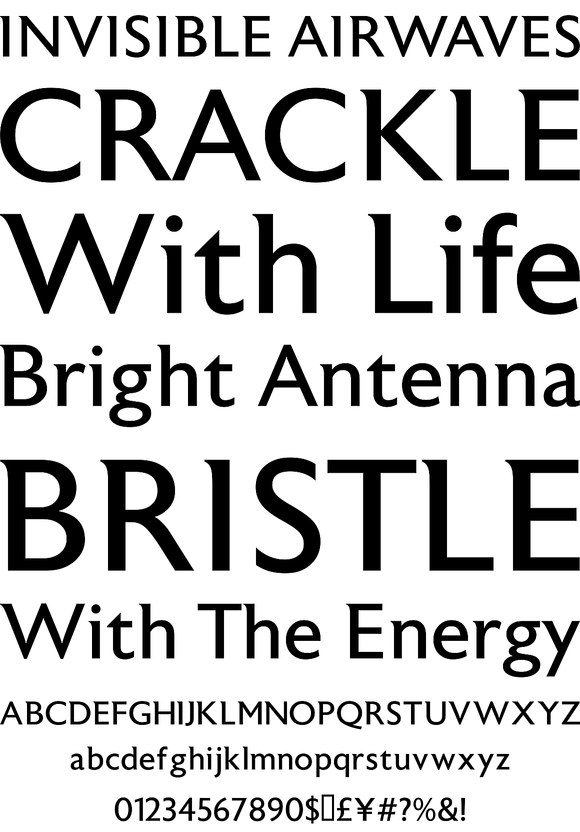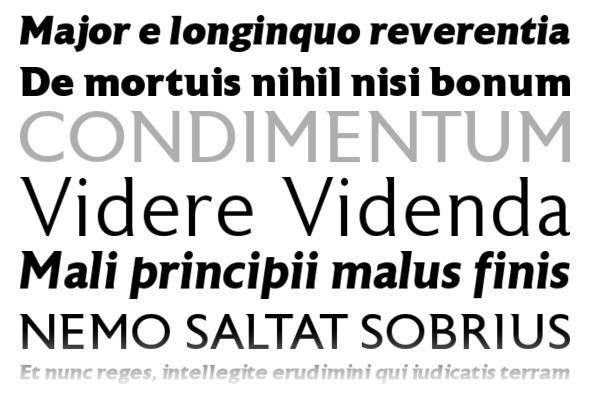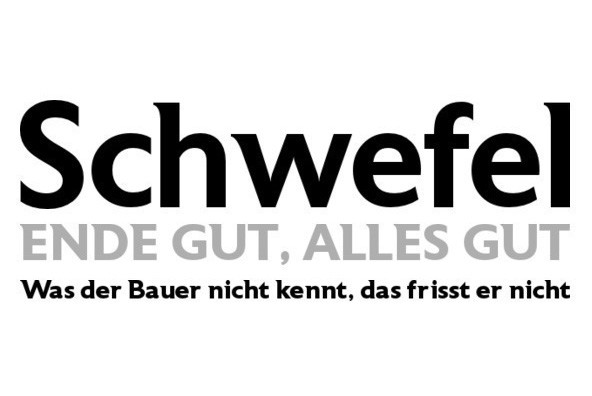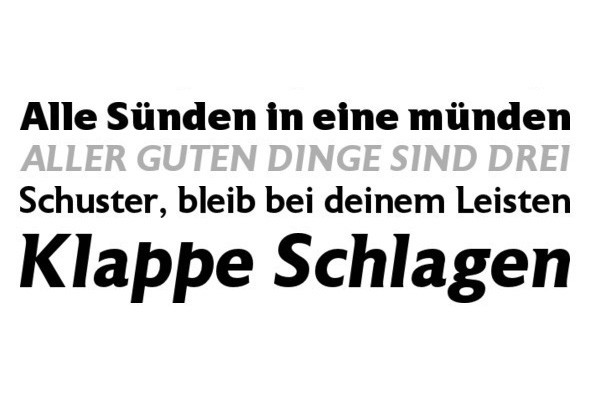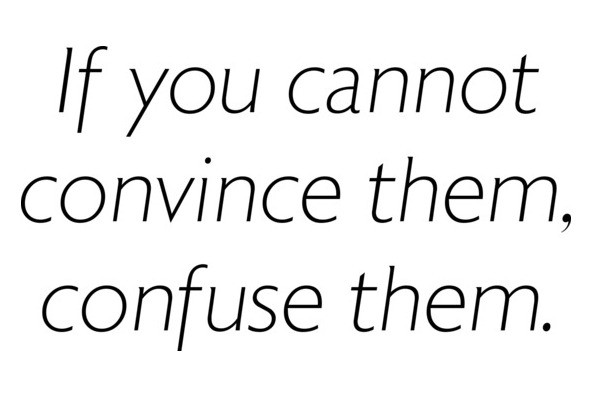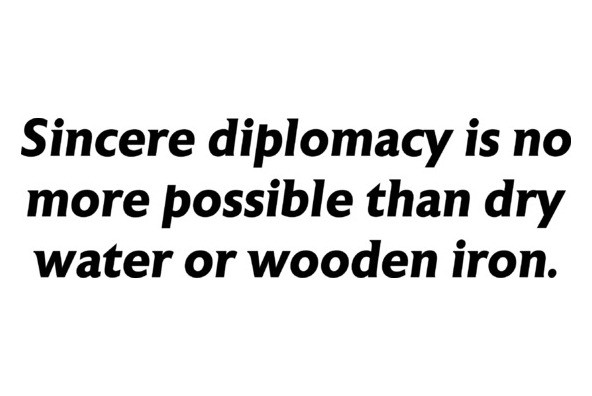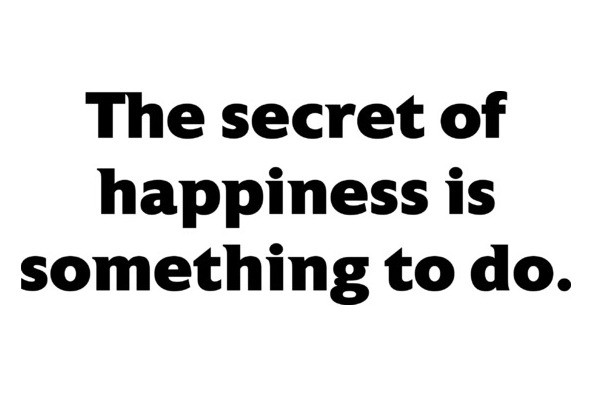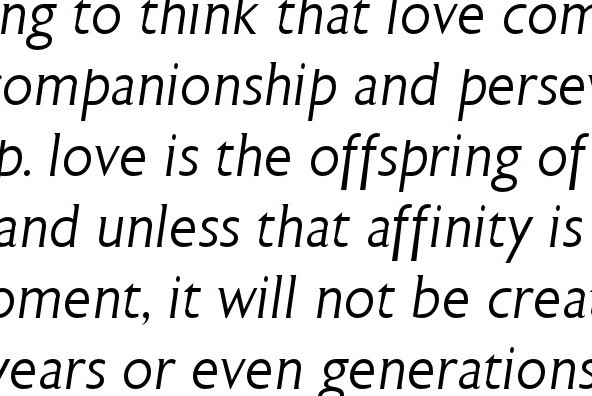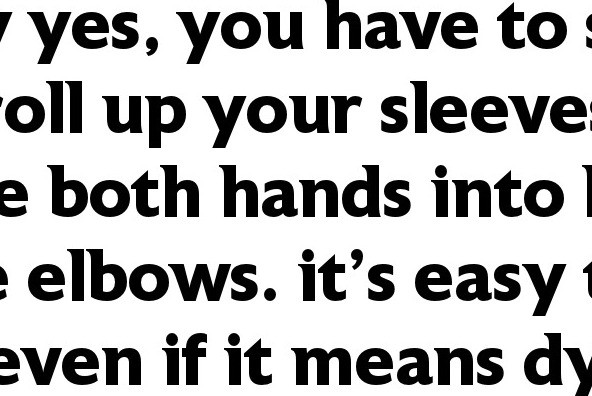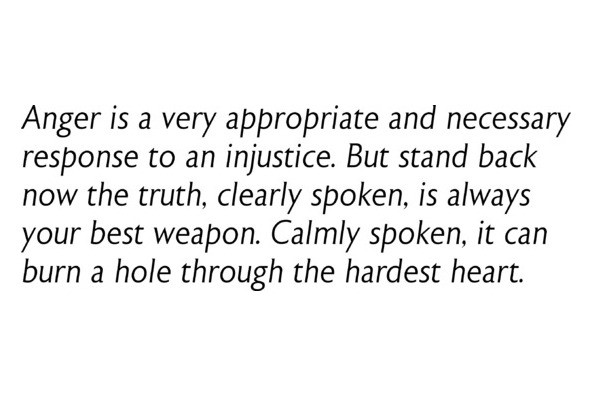
Astoria
Based heavily on Gill Sans especially in the mid weights, Astoria has a subtle top left serif which makes it not quite a Roman and not quite a Sans. Designed specifically as a text face it still works very well as a headline font.